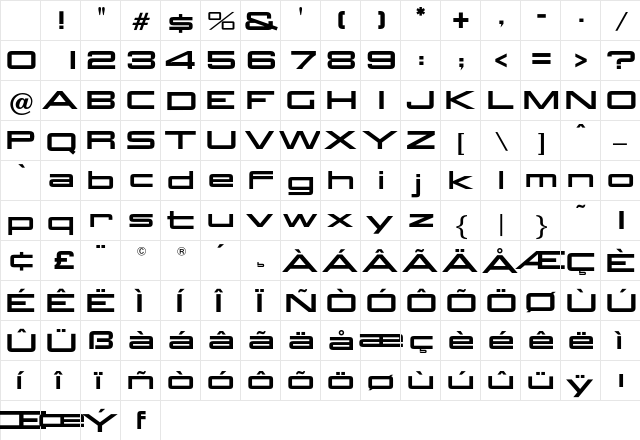
Complete OPTIAggie Solid glyph index. Displaying only characters natively supported by OPTIAggie Solid font.
OPTIAggie is a composed and adaptable typeface that performs quietly and consistently across a wide range of design contexts.